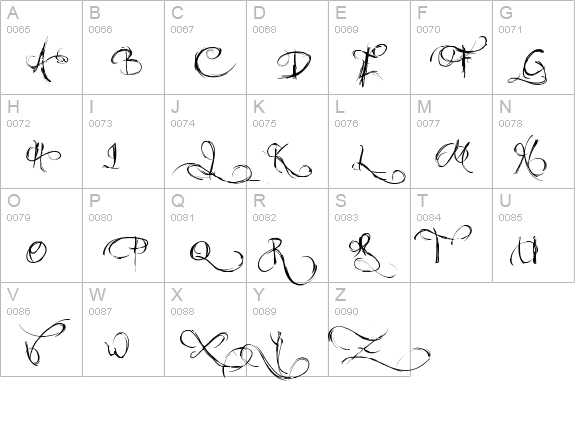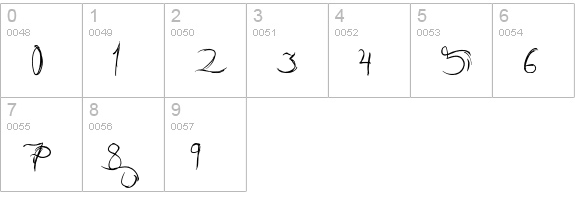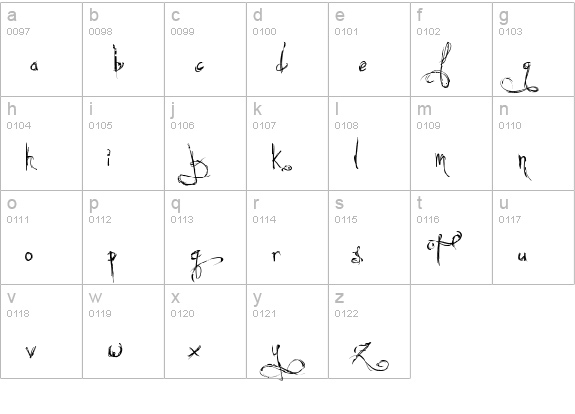
Jellyka Castle's Queen Font Details
Jellyka Castle's Queen font is a beautifully elegant and regal typeface that exudes sophistication and charm. With its intricate details and decorative flourishes, this font is perfect for adding a touch of royalty to any design project. Whether you're creating wedding invitations, branding materials, or elegant typography pieces, Jellyka Castle's Queen font will bring a touch of grandeur to your work. What's even better is that Jellyka Castle's Queen font is available for free download at FontsMarket.com. This means that you can easily access this stunning font and incorporate it into your projects without any cost. Don't miss out on the opportunity to enhance your designs with the grace and beauty of Jellyka Castle's Queen font - download it today and elevate your creations to a new level of sophistication.